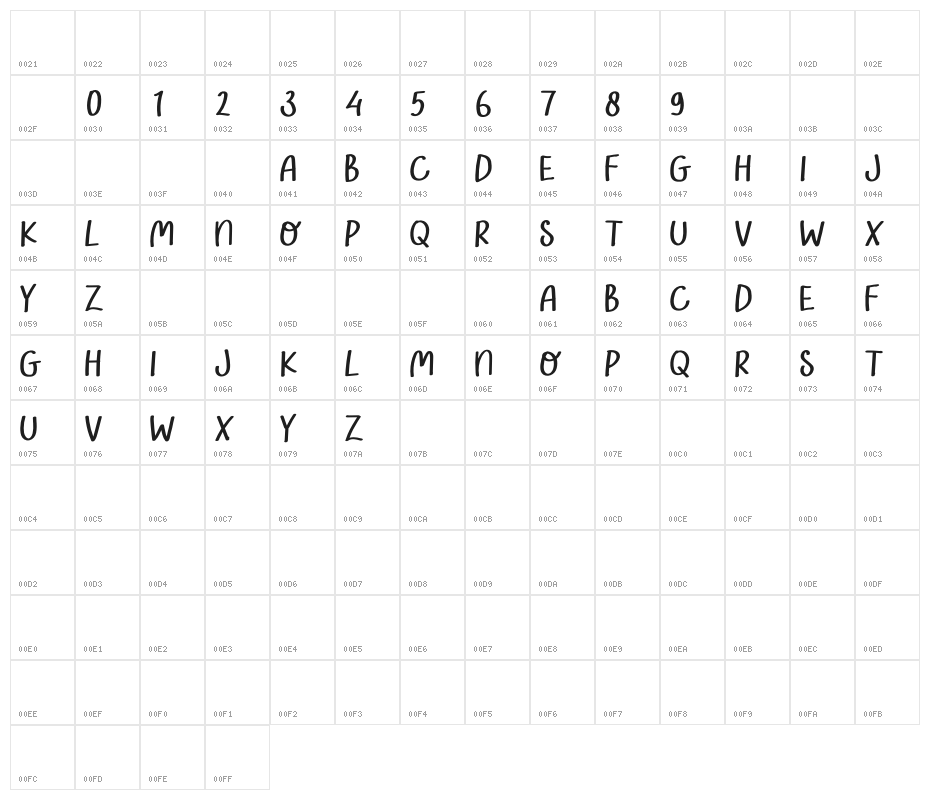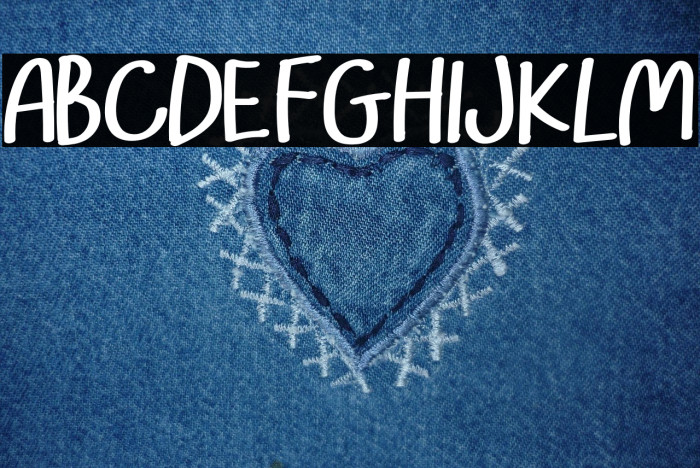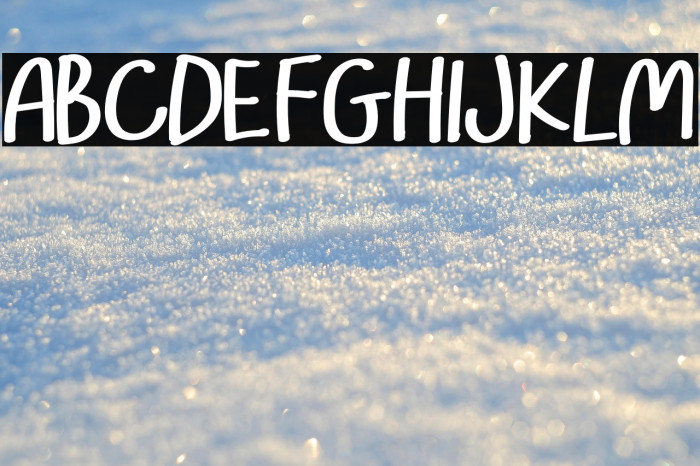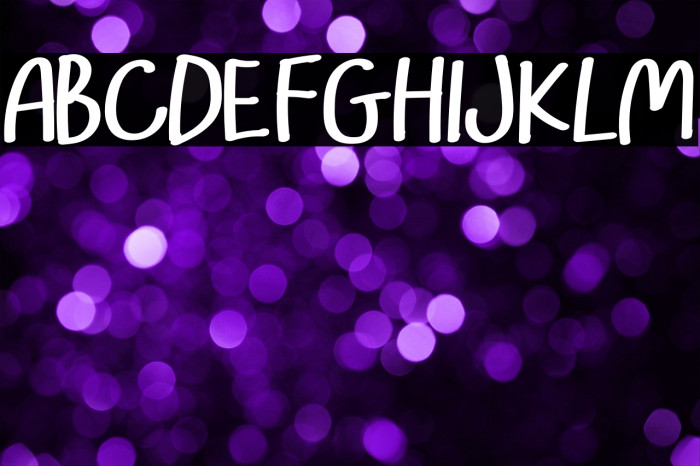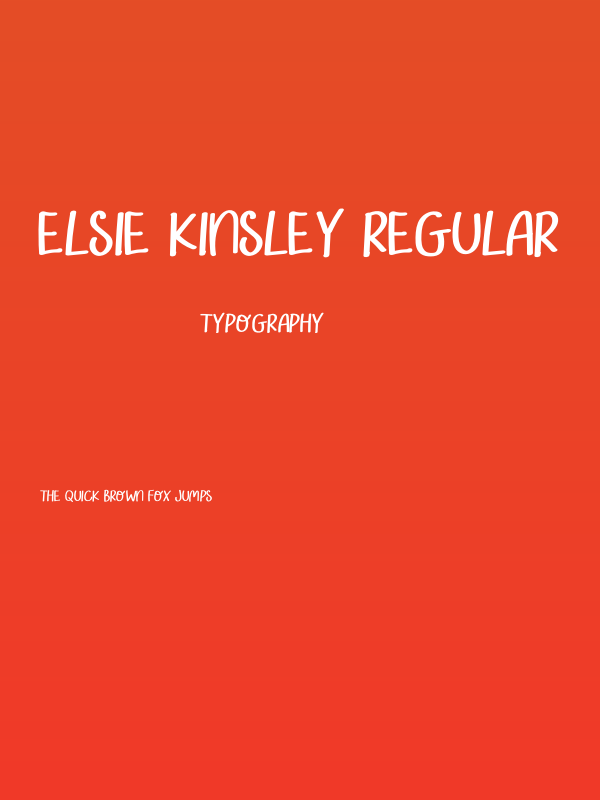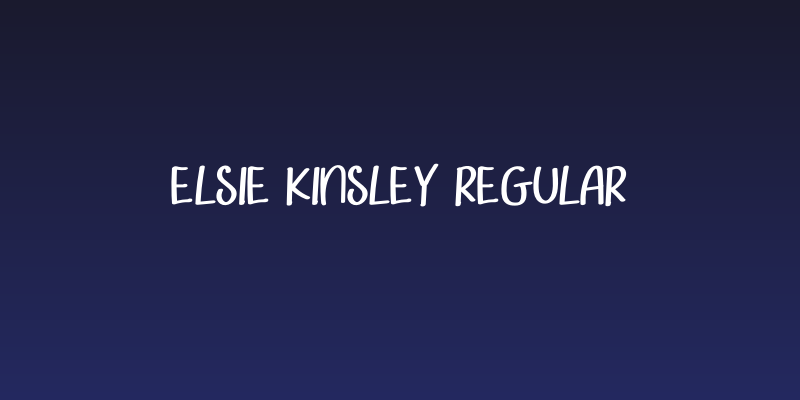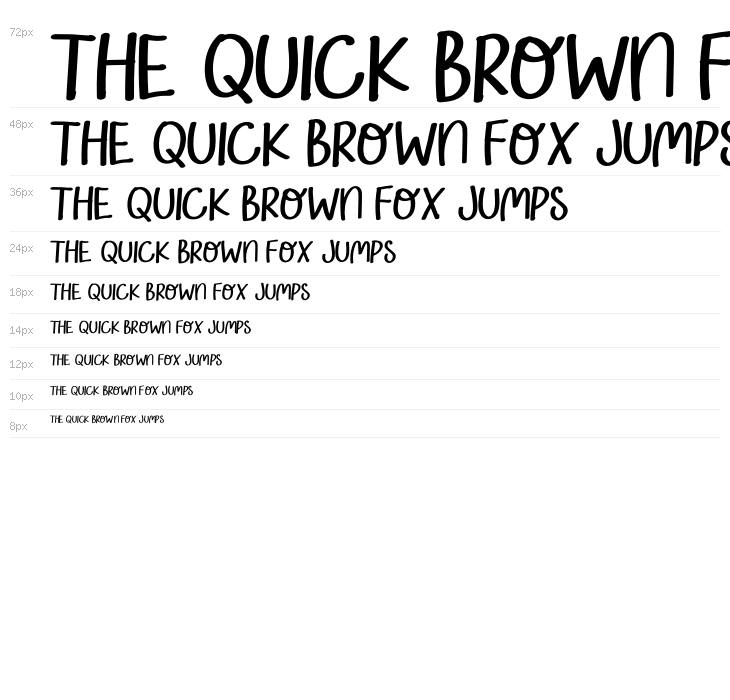
Elsie Kinsley Regular Font
Elsie Kinsley Regular Description
This font features a playful and casual handwritten style, characterized by its smooth curves and slightly irregular strokes that give it a friendly and approachable appearance. The letters are bold and rounded, with a consistent weight that maintains readability across different sizes. The uppercase and lowercase letters are well-proportioned, and the numerals are clear and distinct. This font's informal style makes it ideal for projects that require a personal touch, such as invitations, greeting cards, and children's books. Its simplicity and charm make it versatile for various creative applications.
Overall StyleCasual
Use CaseHeadlines, Logos, Creative projects
Proposed ProjectsIdeal for invitations, greeting cards, children's books, and creative projects requiring a personal touch.